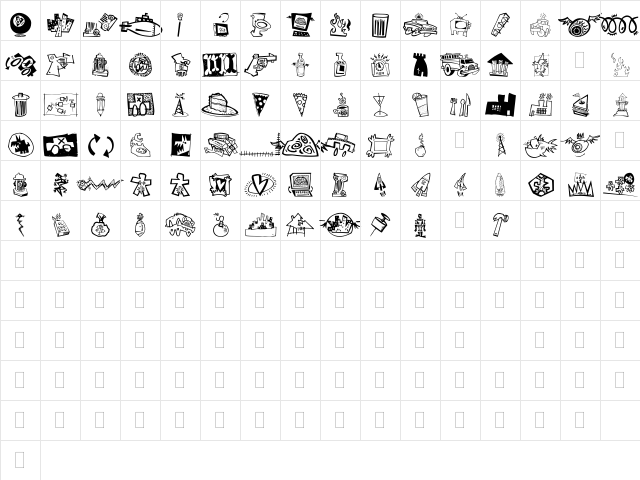
DF Urbans LET Plain
Design Context for DF Urbans LET Typeface
DF Urbans LET is a composed and adaptable typeface that performs quietly and consistently across a wide range of design contexts.